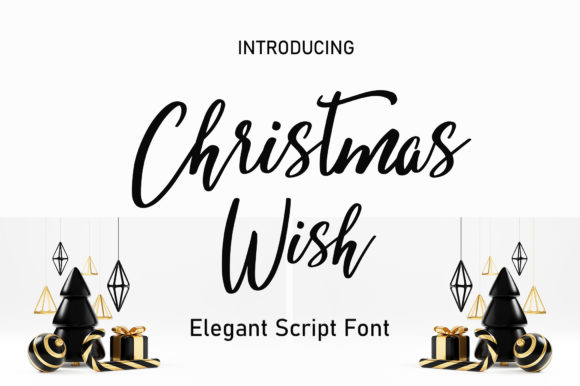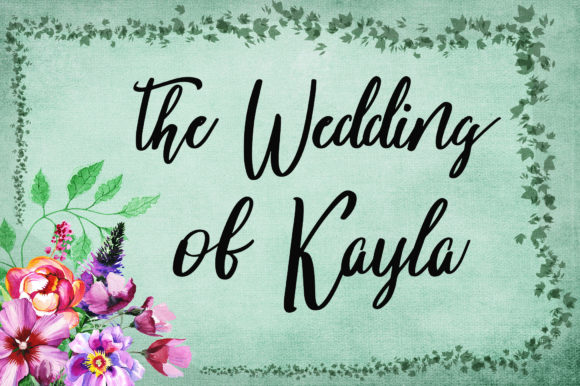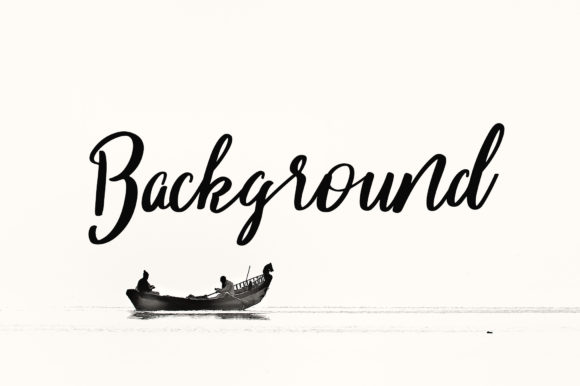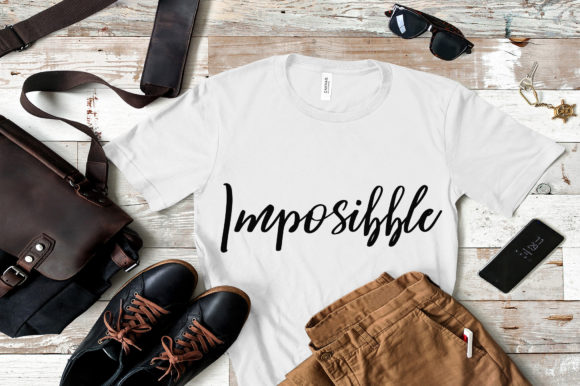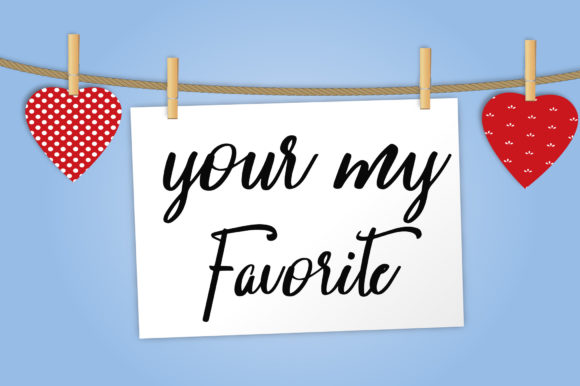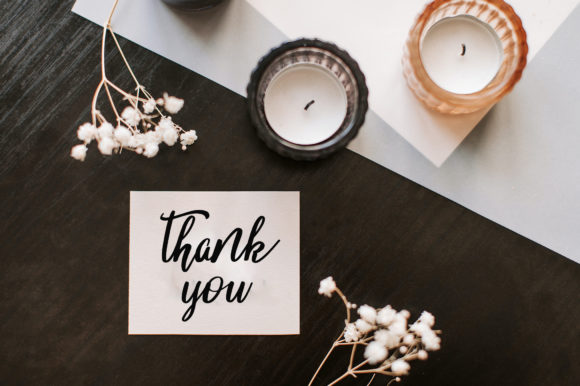
Christmas Wish Font
About Christmas Wish Font
Christmas Wish is a lovely and timeless handwritten font. It is the best choice for creating eye catching logos, branding and quotes. Every letter has a unique and beautiful touch, which will make your design come alive!